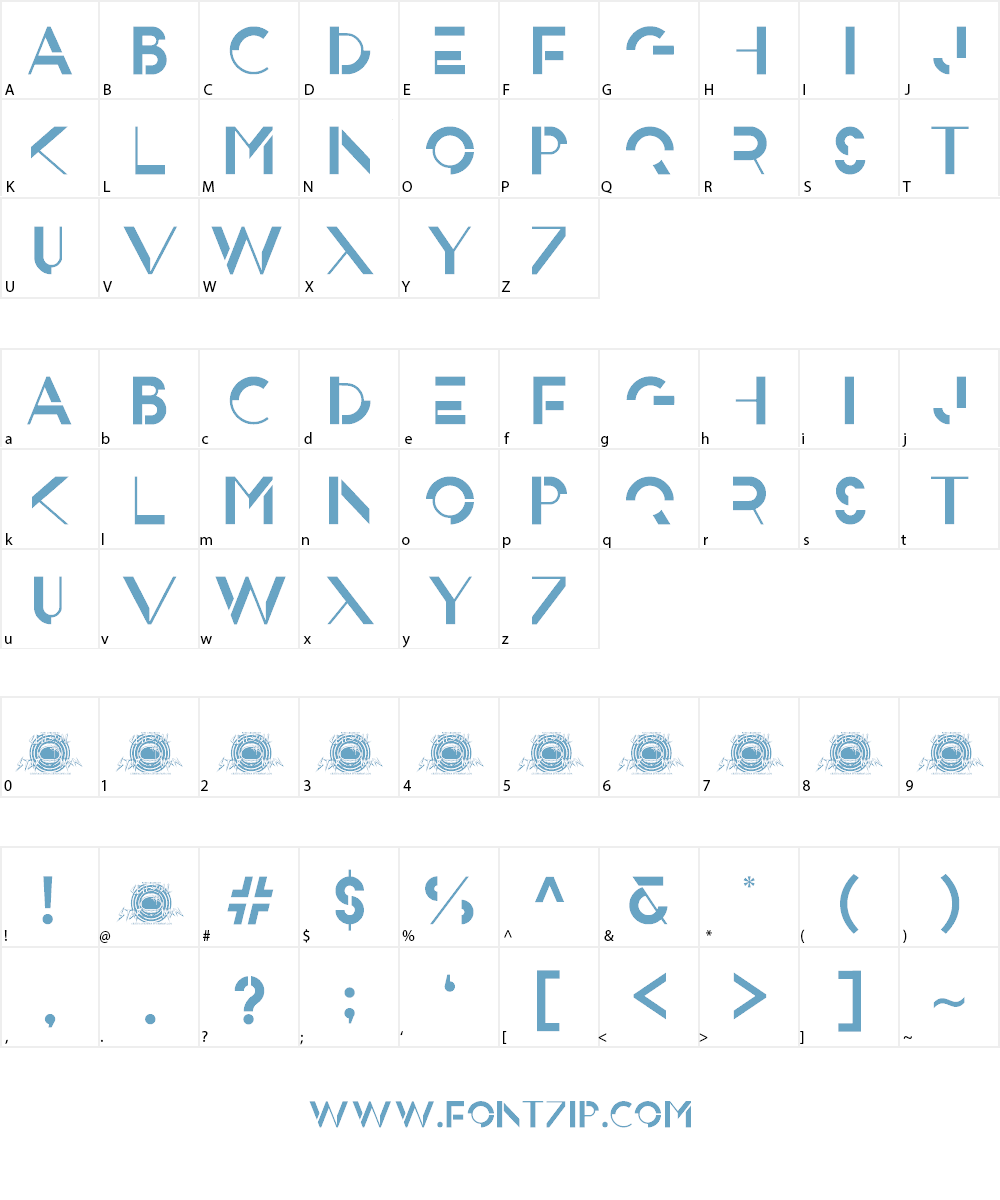
This font was based off the works by Hassan Rahim and Willo Perron, who designed the title text for rock'n'roll singer Marilyn Manson's ninth studio album, 'The Pale Emperor'. I have based the font off their designs for the album cover, of which was designed to mimic the devil blues era of rock'n'roll, an era of which heavily inspired this record. The album design also visual references German sub-culture, like post-modern Degenerate photography, but most notably the character of fiction, 'Mephistopheles', who Manson heavily identifies with on his record. Mephistopheles, being the man who made a deal with the devil then thought he could outrun him - as Manson put it, he himself had been hearing "the hounds of hell on my trail", and Marilyn running away from paying his dues. By making this record, he tributes the birth of rock'n'roll, and "re-claims the mortgage on his soul."